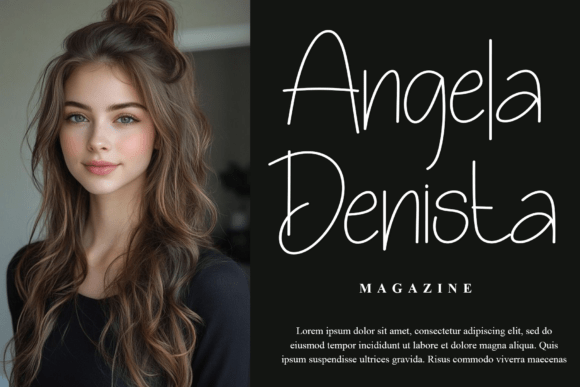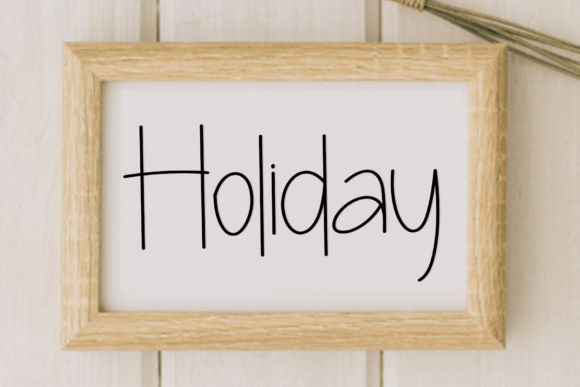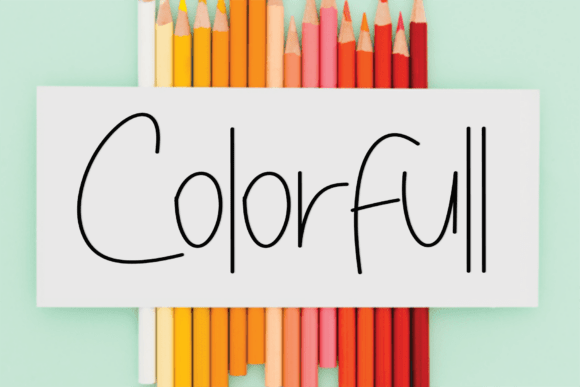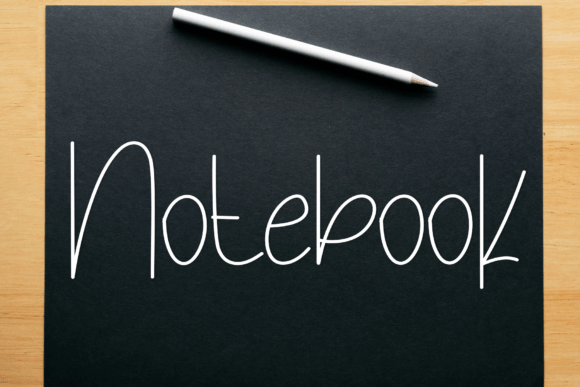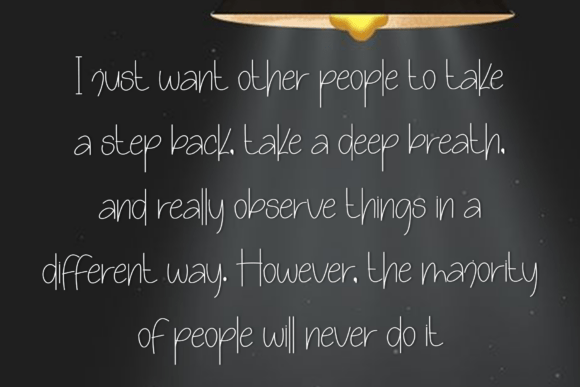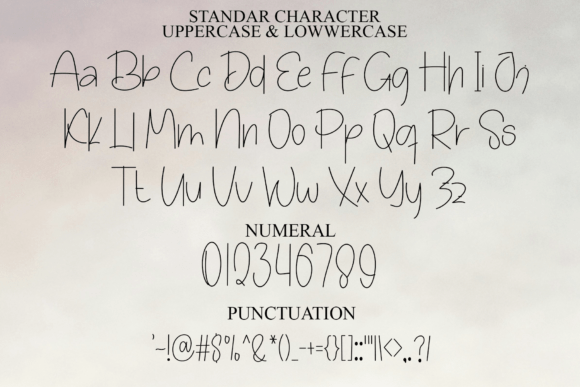
Introduction to Dessert Cactus Font
Have you ever been stuck on a creative project, trying to find the perfect font to match your design’s personality? I know I have. One day, while browsing through a collection of free fonts, I stumbled upon the Dessert Cactus Font. Its quirky, hand-drawn aesthetic immediately caught my eye, and I couldn’t wait to learn more.
As a designer, I appreciate high-quality design resources that can elevate my work and make it stand out. The Dessert Cactus Font is one such resource, offering a unique and playful touch to any design. With its standard PUA Encoded glyphs, it’s compatible with various application engines, making it a versatile choice for designers.
Whether you’re working on a personal project, creating social media graphics, or designing invitations, the Dessert Cactus Font is a valuable addition to your design toolkit. In this article, we’ll explore the features and benefits of this charming font, and how you can incorporate it into your next creative project.
Key Features of Dessert Cactus Font
- Supports a range of languages, making it a versatile design resource.
- Designed with a modern, cactus-inspired aesthetic, perfect for dessert-themed designs or branding.
Honest Review: Dessert Cactus Font
I recently stumbled upon the Dessert Cactus Font and I must say it’s a great addition to any design resource library. The font is a high-quality, free download that’s perfect for a creative project like a dessert-themed brochure or a social media graphic.
What works well is the unique and playful design of the font. It’s a great combination of cactus and dessert elements that will surely make your design stand out. I love the fact that it comes with a transparent background, which makes it easy to customize and pair with other design elements.
Here are some of the features that I like about this font:
- Unique and playful design that’s perfect for a dessert-themed project
- It’s a single font, so you won’t get a whole font family
- The design might not be suitable for all types of projects, especially those that require a more serious tone
Overall, I’m impressed with the Dessert Cactus Font and I think it’s a great addition to any design library. It’s perfect for a creative project that needs a unique and playful touch. ✨
Tips for Getting the Most Out of Dessert Cactus Font
To get the most out of the Dessert Cactus Font, experiment with different font sizes, colors, and combinations. You can also use it in conjunction with other design elements to create a unique and eye-catching visual identity.
The Dessert Cactus Font is ideal for creative projects such as food blogs, social media, advertising, and event invitations. Its playful and whimsical design makes it perfect for capturing attention and adding a touch of personality to your design.